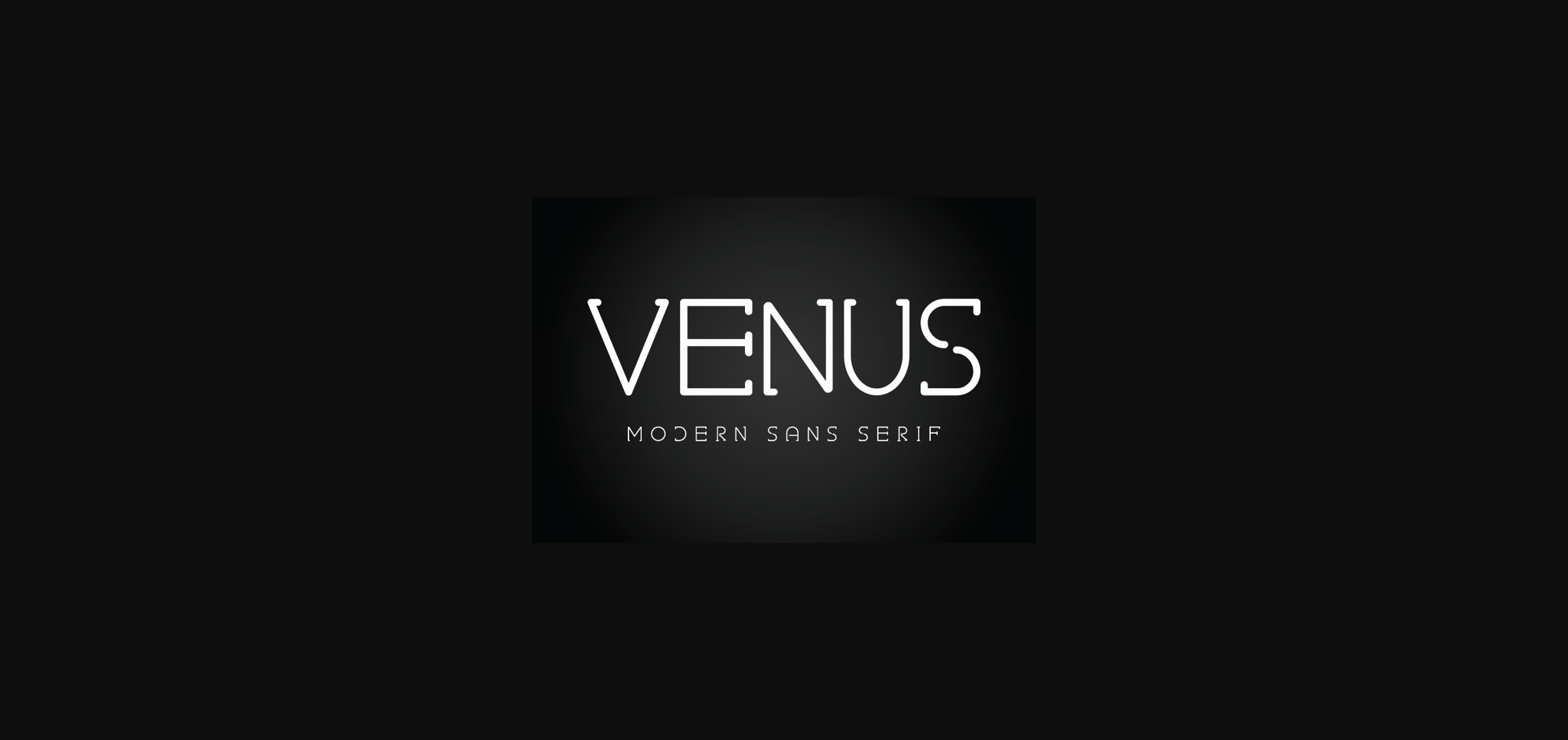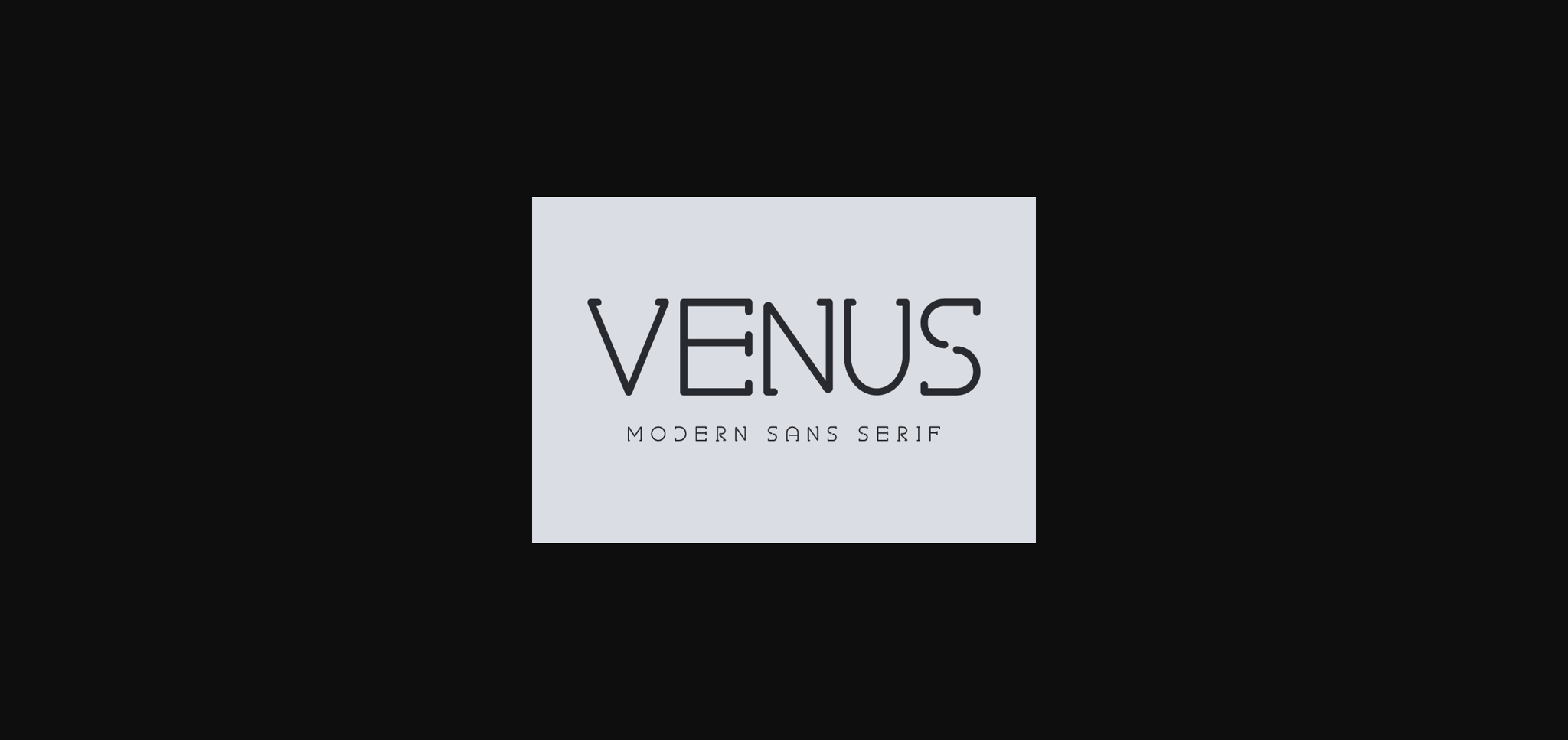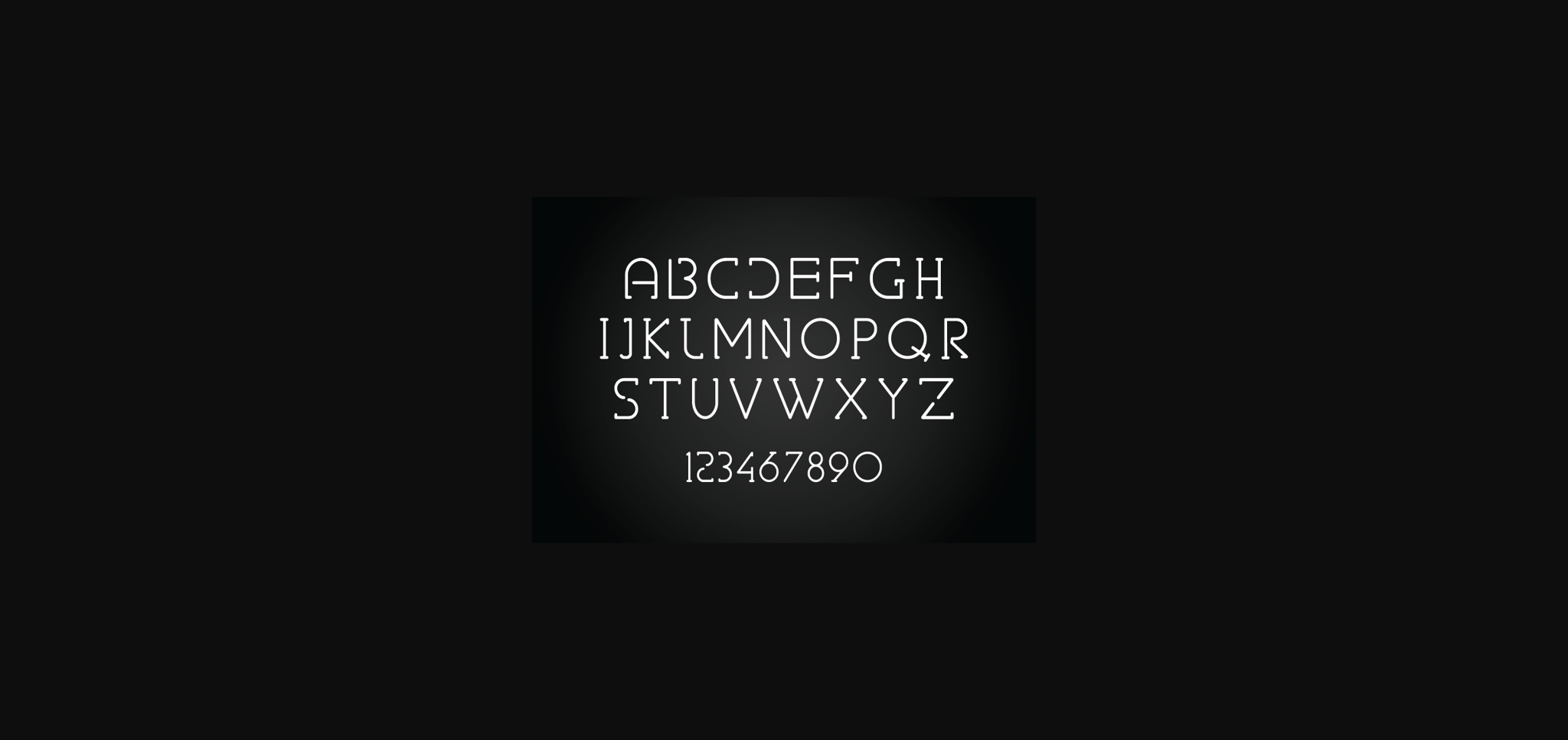
Venus Font
About Venus Font
Venus is a simple and modern sans-serif font designed for a clean and contemporary look. With its geometric shapes and balanced proportions, Minimal Sans Serif is perfect for creating a minimalist aesthetic in logos, web design, and branding.